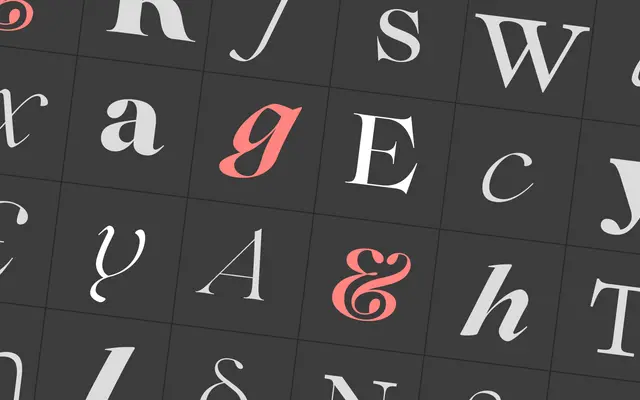
Lovelace
Zetafonts · Cosimo Lorenzo Pancini, Andrea Tartarelli, Mariachiara Fantini · 2019
A 30-style Victorian Old Style revival in two optical sizes plus a connected script, named after Ada Lovelace and drawing on Phemister, Elzevir and calligraphic traditions.
Designed by Cosimo Lorenzo Pancini, Andrea Tartarelli and Mariachiara Fantini, it revives nineteenth-century Old Style letterforms with calligraphic curves and angled serifs, consciously stepping away from the rigidity of Bodonian models. Two optical sizes split the workload: the Text subfamily prioritises generous x-height and screen legibility, while the Display cuts favour high contrast and fine detailing suited to editorial headlines. A separate Script subfamily with swashes and connected lowercase adds a third register, and all 30 styles cover 208 languages across Latin, Greek and Cyrillic.
Described by Zetafonts as a revival of nineteenth-century Old Style typography, drawing on Renaissance calligraphic letterforms and Elzevir revival styles, with calligraphic curves and angled serifs in the tradition of Phemister and Alexander Kay.